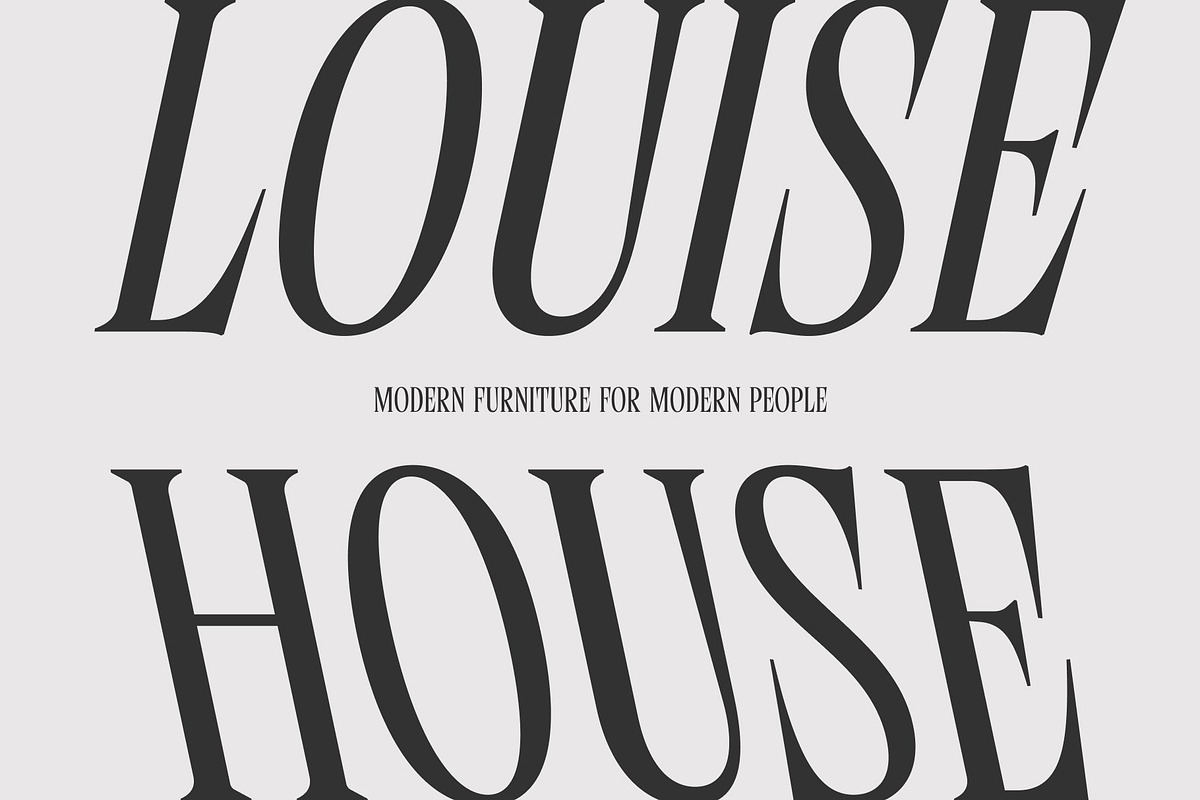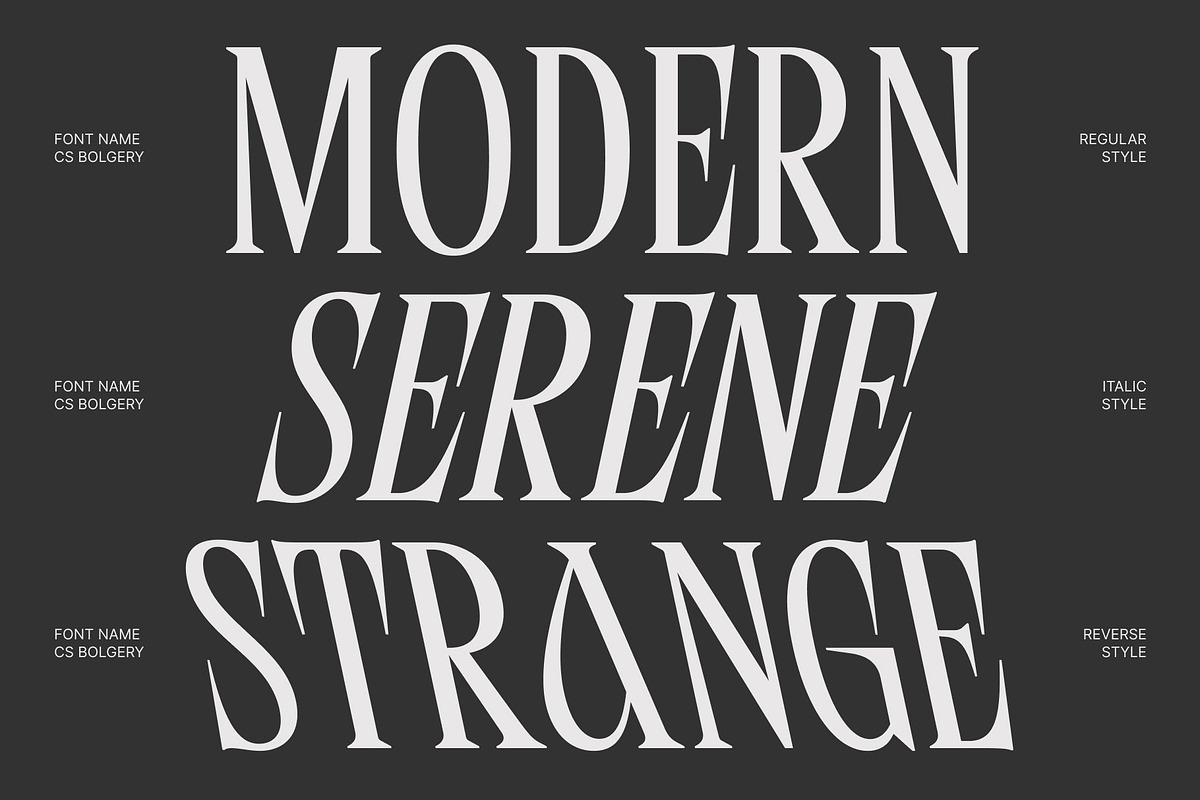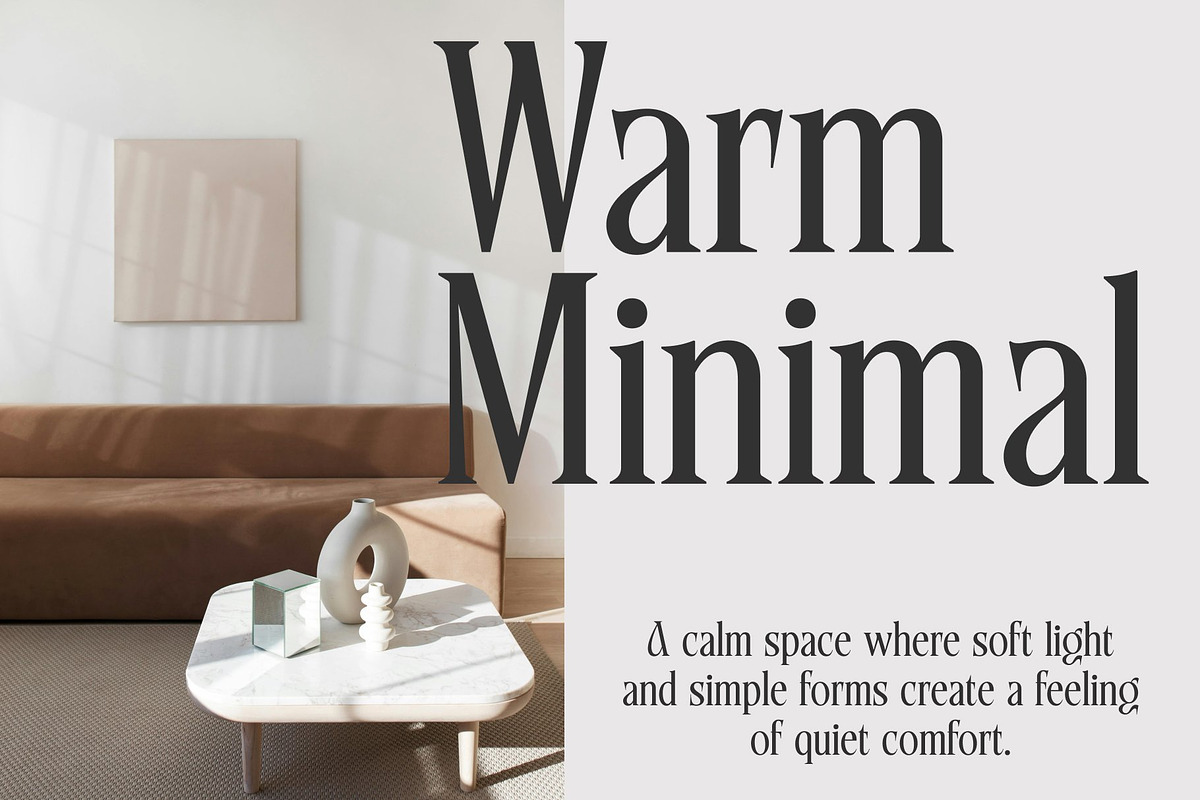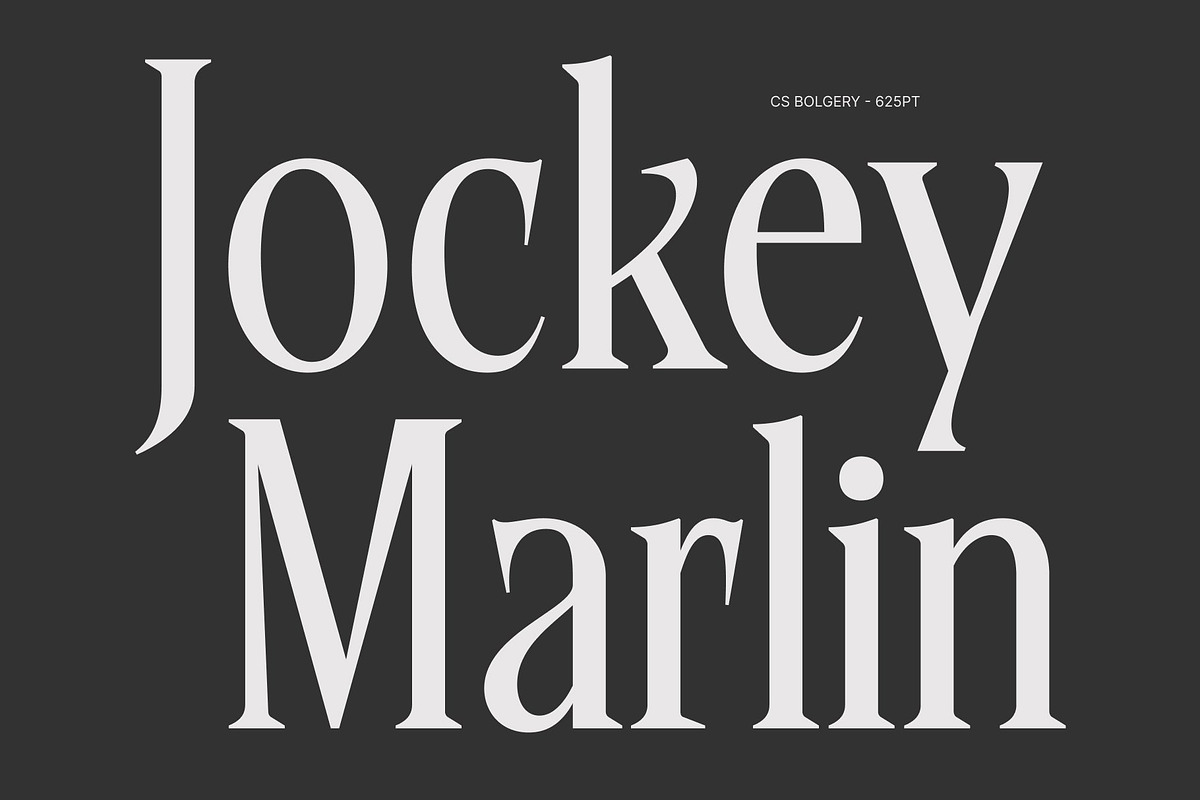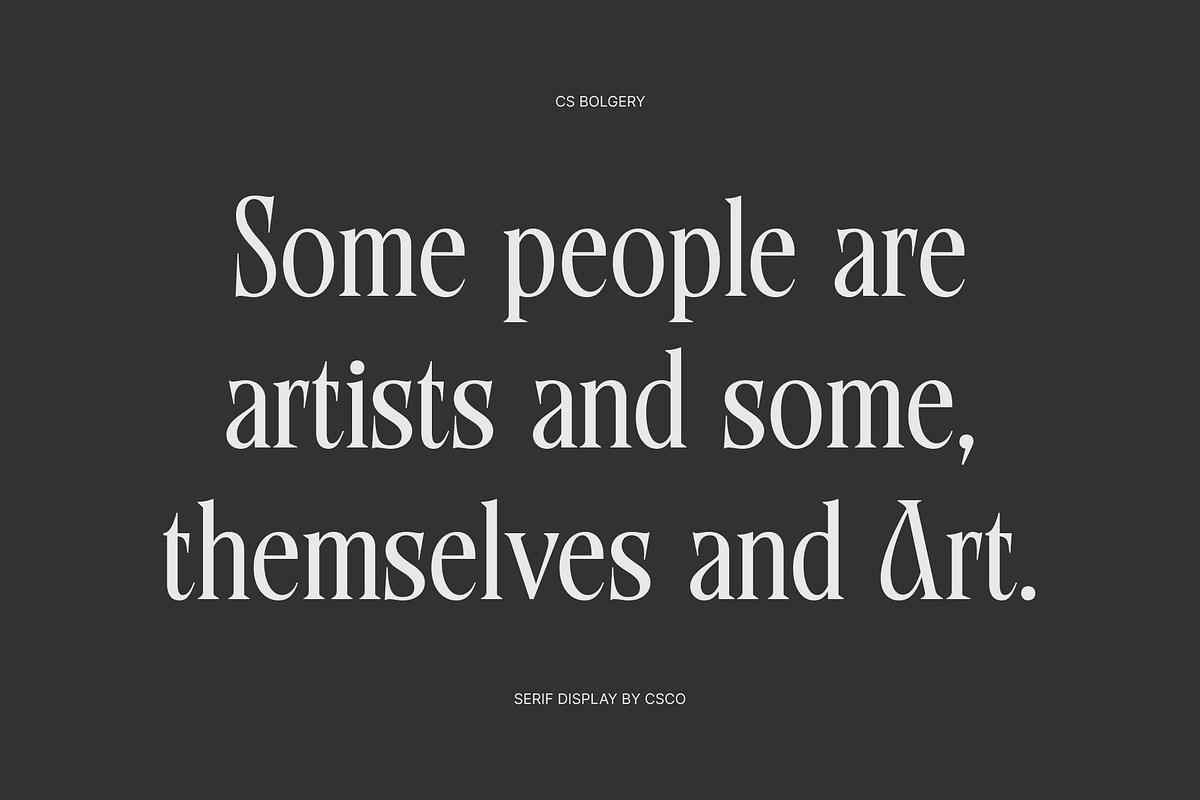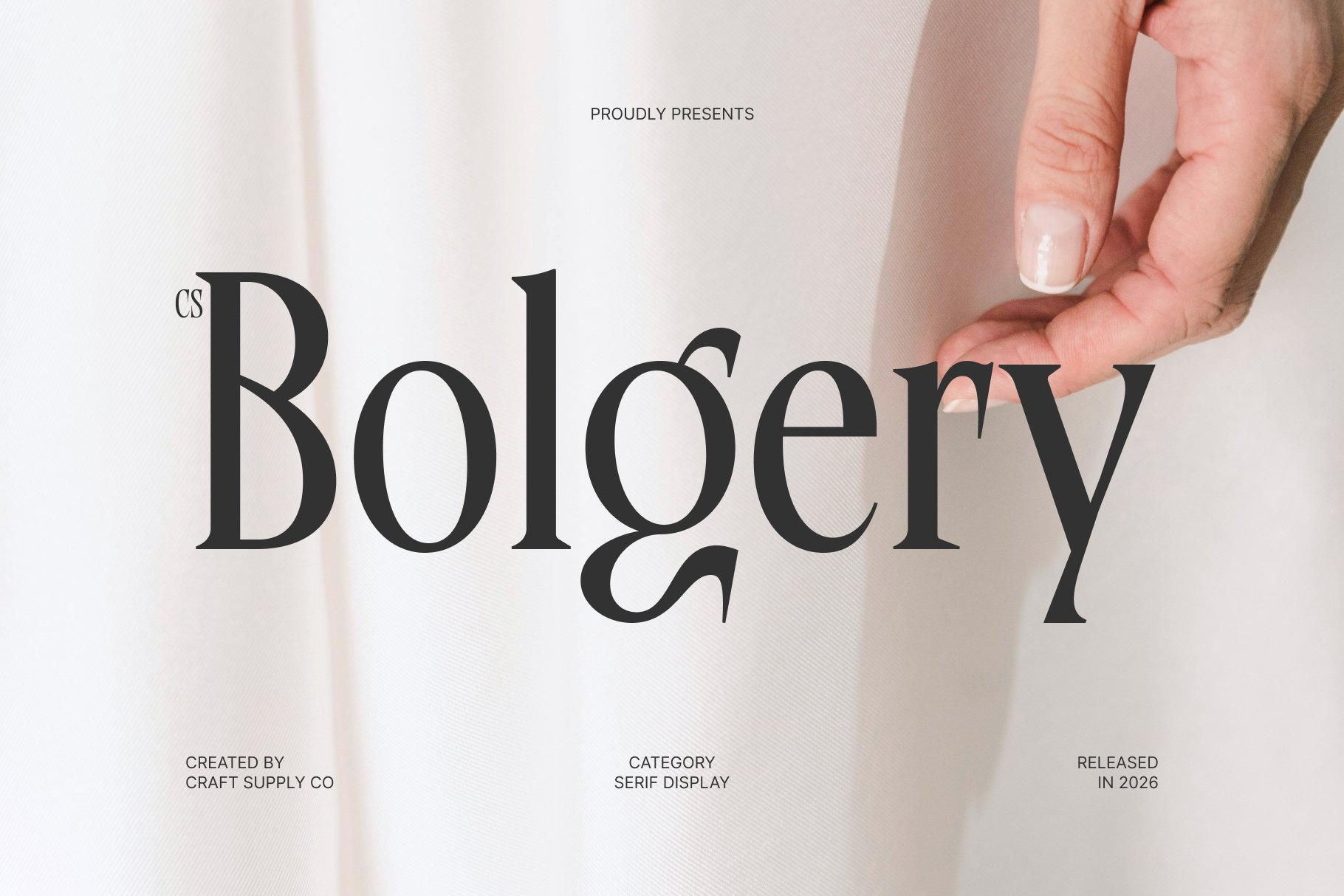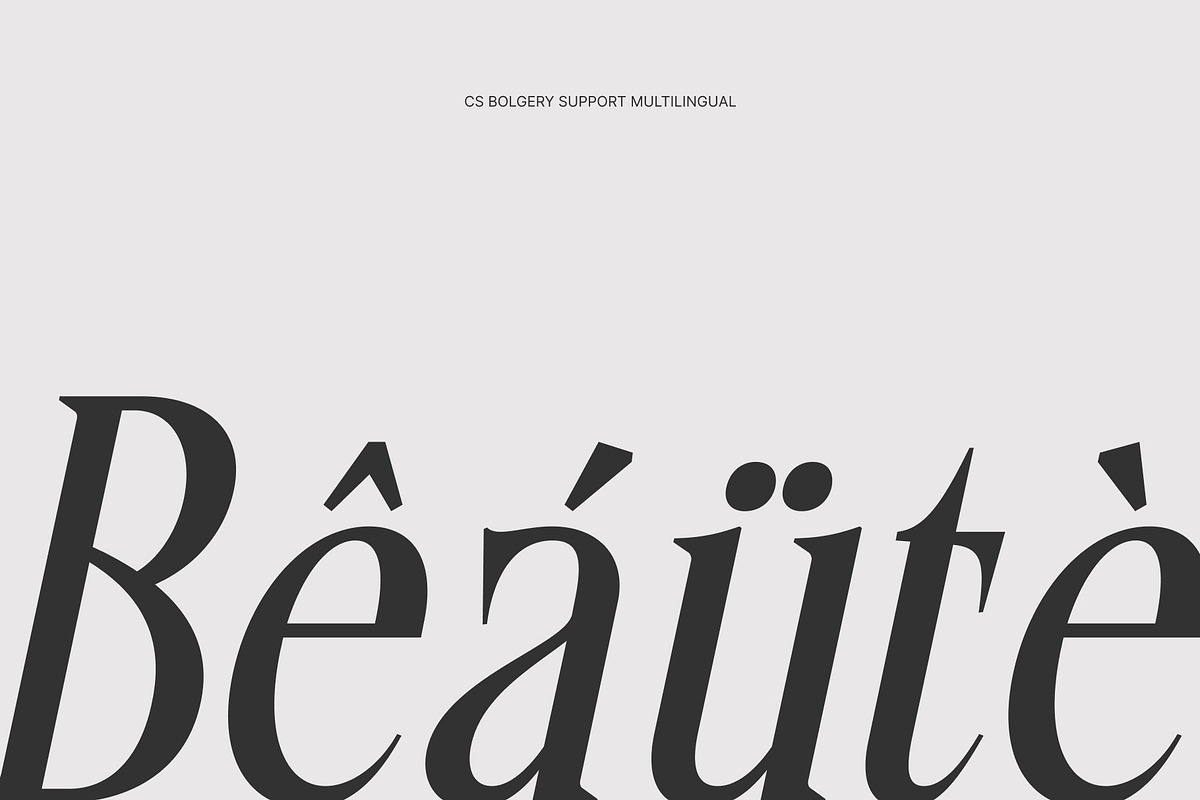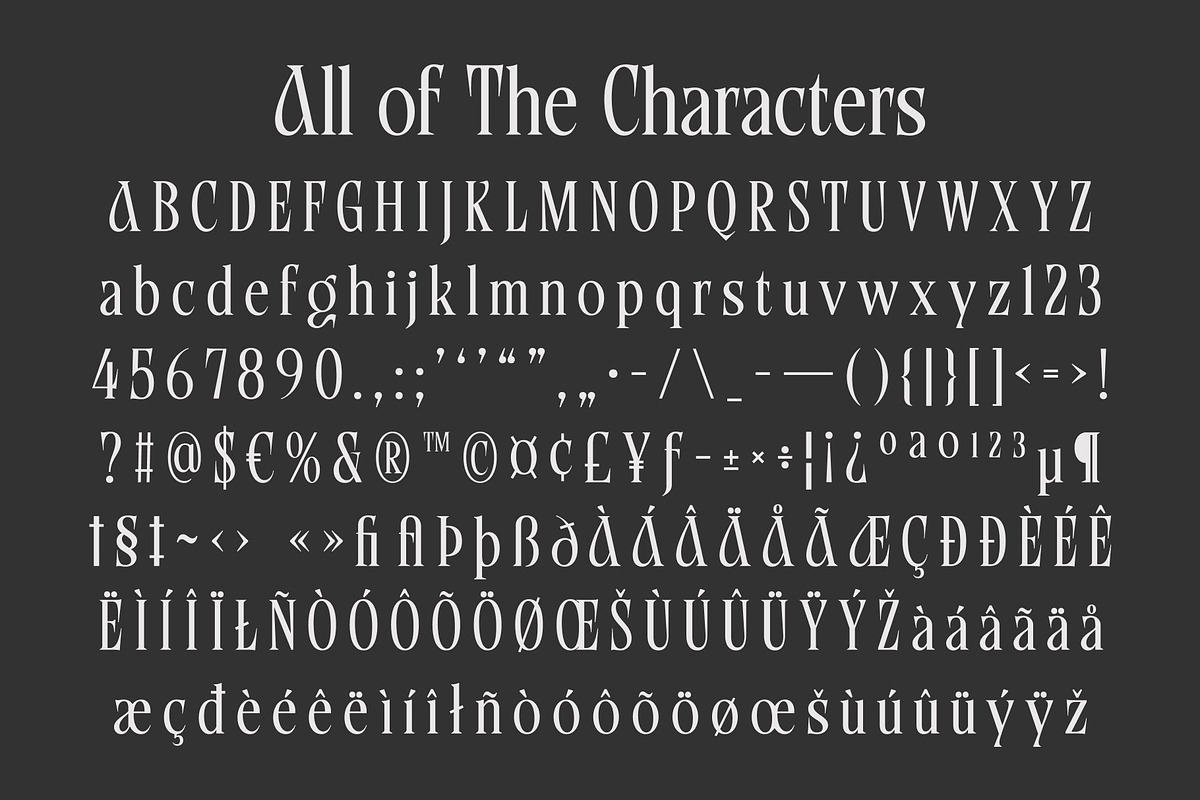
CS Bolgery – Elegant Serif Font
CS Bolgery – Elegant Serif with Elongated Luxury
Elegant Serif with Refined Curves This is an elegant serif font crafted to bring sophistication and grace into modern design. Its refined curves create a smooth and polished appearance that immediately communicates luxury and professionalism. The overall structure feels balanced and harmonious, making every word look intentional and beautifully composed.
Elongated Details for a Distinctive Presence One of the most striking characteristics of this font is its elongated letterforms. These extended proportions create a tall, graceful silhouette that adds drama and visual elegance to headlines and titles. The vertical emphasis naturally draws attention, helping designs feel premium, stylish, and confidently refined.
Timeless Sophistication with Modern Appeal This font blends timeless serif traditions with a contemporary aesthetic, making it feel both classic and current. The contrast between delicate curves and structured strokes gives the typeface a luxurious personality while maintaining strong readability. This balance ensures the font looks sophisticated without feeling overly formal or rigid.
Perfect for Luxury Branding and Editorial Design This font shines in luxury branding, editorial layouts, and high-end design projects. Whether used for fashion branding, magazine headlines, logos, or premium packaging, this font delivers elegance and prestige. It transforms simple typography into a statement of style, making every design feel elevated and memorable.
CS Bolgery Regular
CS Bolgery Italic
CS Bolgery Reverse Italic